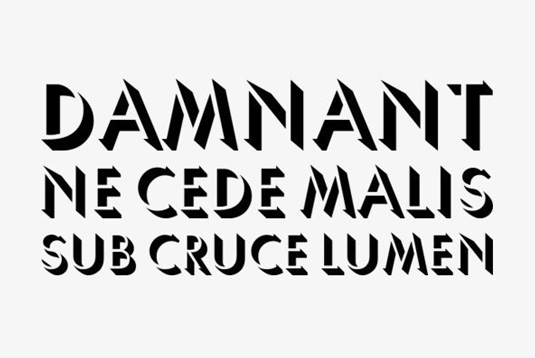
Font of the day: Umbra
Umbra from URW++
Today's font of choice is sans serif font Umbra from font shop URW++. Originally designed in 1935 by R. Hunter Middleton, this typeface is an adaptation of the uppercase set of his earlier Tempo Light. Described on YouWorkForThem, "Umbra refers to its shadow effect, in which the actual letter shape consists of negative space and is defined solely by its black dimensional shadow."